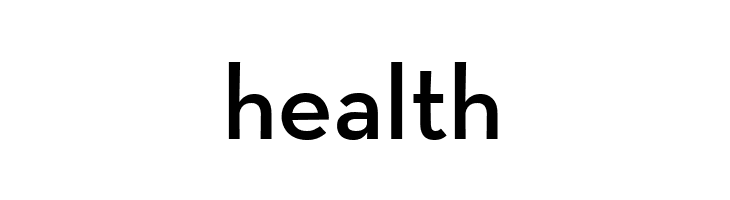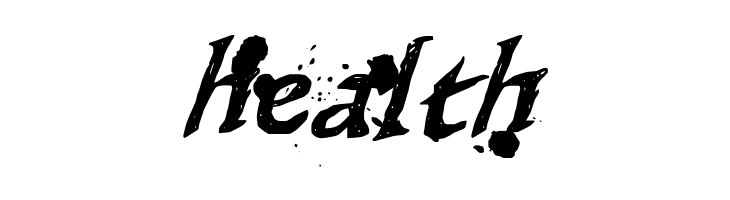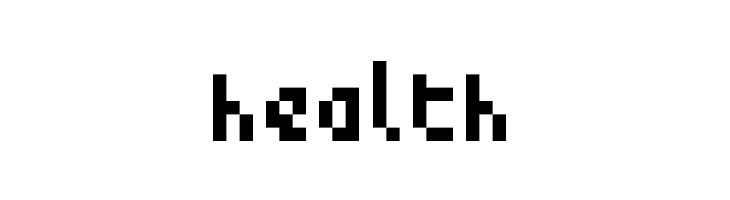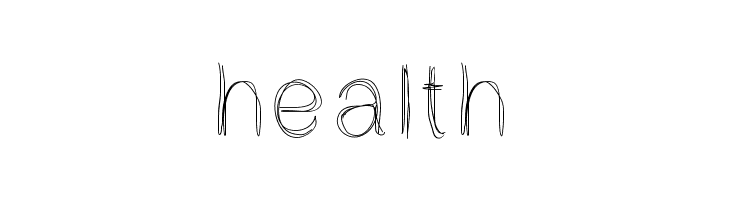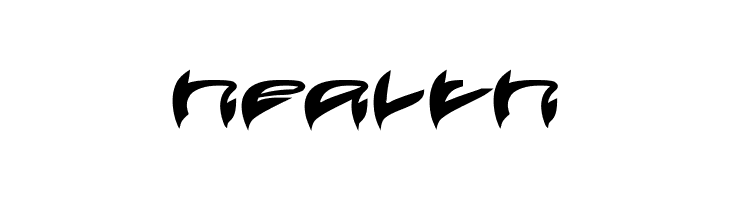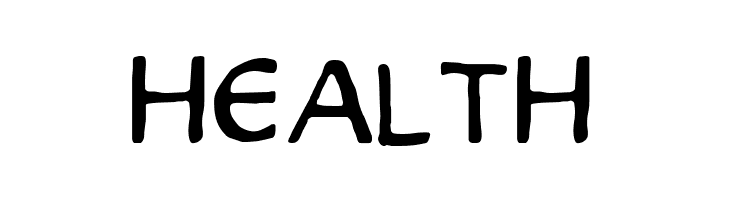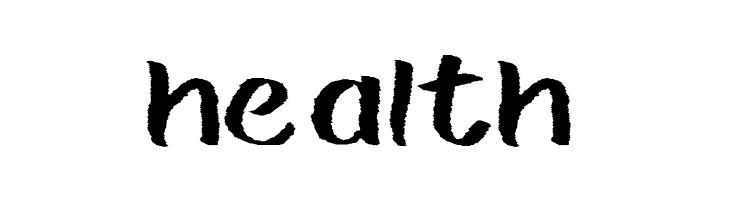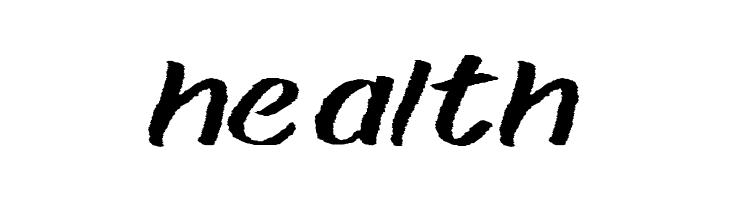
A modern, geometric typeface with clean lines and balanced proportions.
A bold, geometric font with a modern and clear design.
A dynamic, hand-drawn font with sharp, angular strokes and a lively appearance.
A pixelated, blocky font with a retro digital aesthetic.
A playful, hand-drawn font with a sketch-like, artistic appearance.
A bold, decorative font with intricate tribal patterns.
A bold, tribal-inspired font with sharp, angular edges and a dynamic style.
A playful, handwritten font with dynamic and friendly characters.
A bold, expressive handwritten font with brush-like strokes and dynamic flow.
A bold, brush-style font with dynamic strokes and a handcrafted feel.